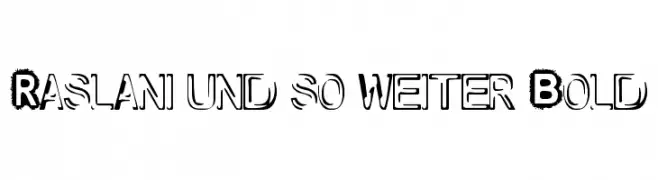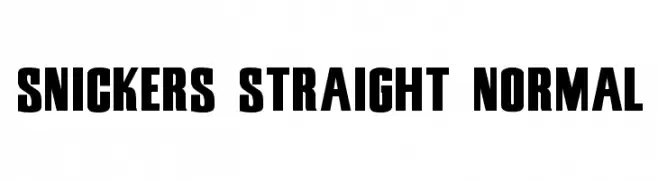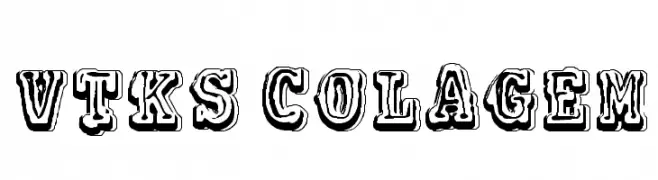
A bold, slab serif font with a strong, impactful presence.
A bold, modern font with strong strokes and a vintage touch.
A bold, expanded font with thick strokes and strong presence.
A bold, rounded font with a playful and friendly appearance.
A bold, shadowed font with a modern, three-dimensional appearance.
A bold, slab serif font with high contrast and vintage-modern appeal.
A bold, decorative font with a vintage, three-dimensional style.